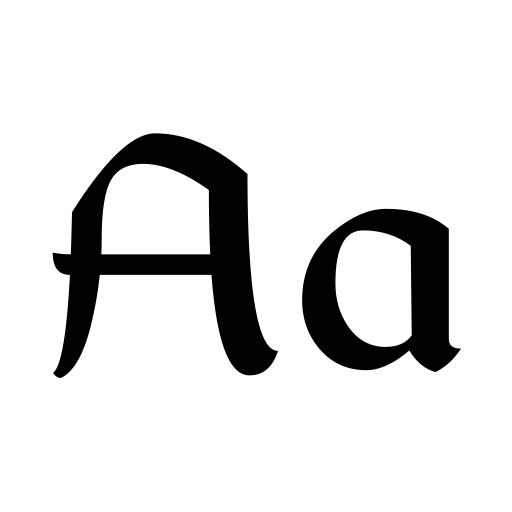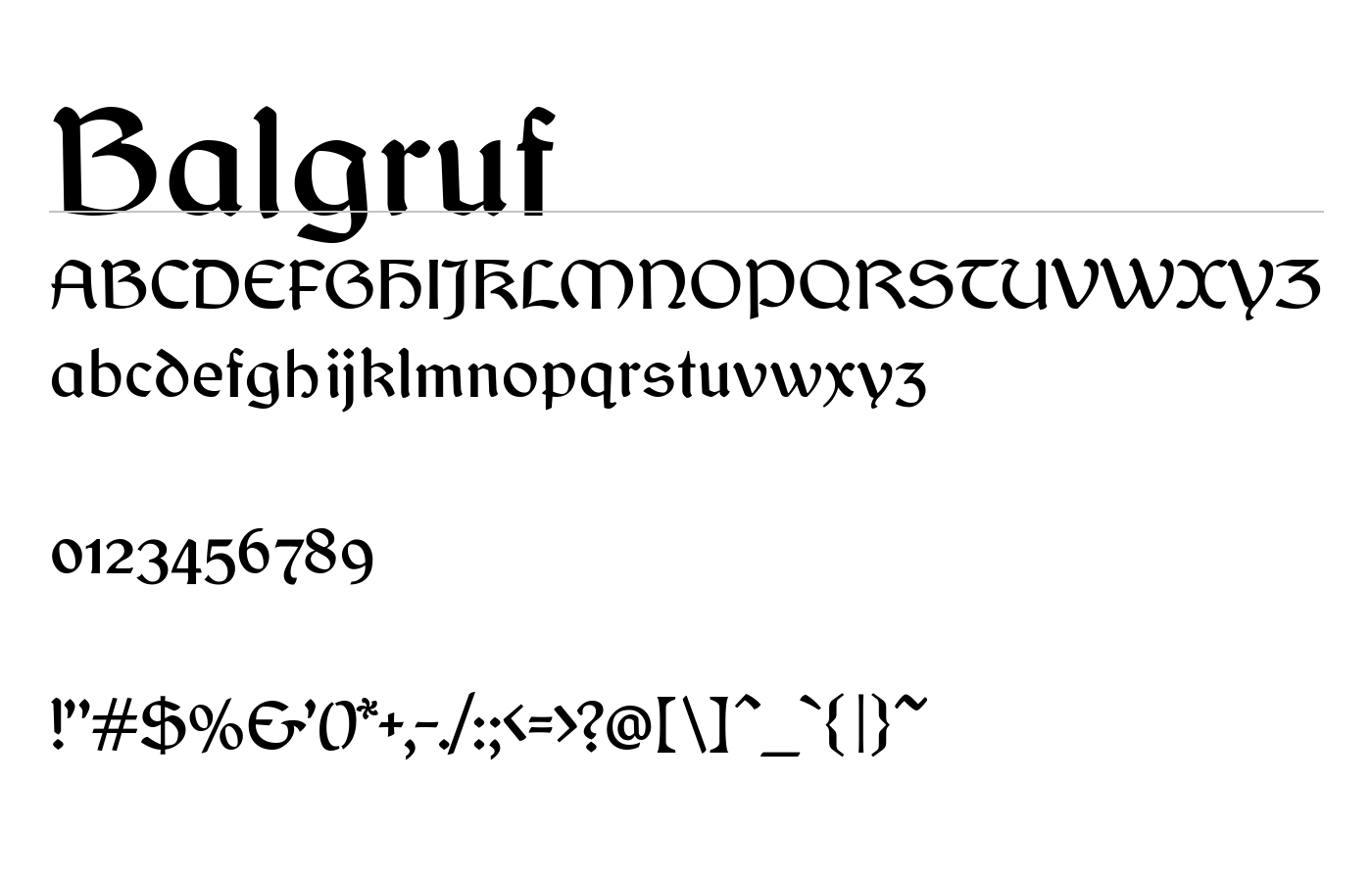
Balgruf is a distinctive serif font with a vintage, medieval-inspired style, featuring sharp, pointed serifs and a high contrast between thick and thin strokes. Its unique letterforms, including angular curves and ornate details, create a strong personality well suited for logos, headlines, and branding that aims to convey tradition, craftsmanship, or fantasy themes. This font works beautifully for projects requiring a bold, historical feel with a touch of elegance and character.
Balgruf Font
About Balgruf Font
| Designer | Paul James MIller |